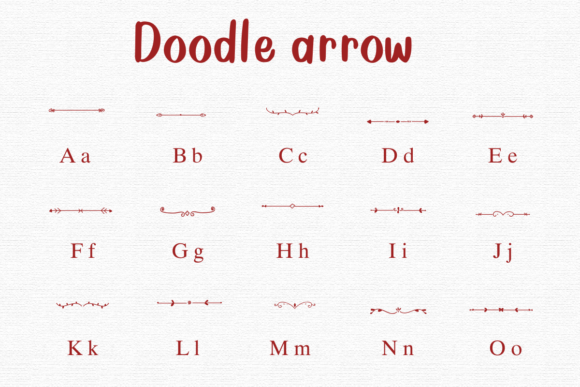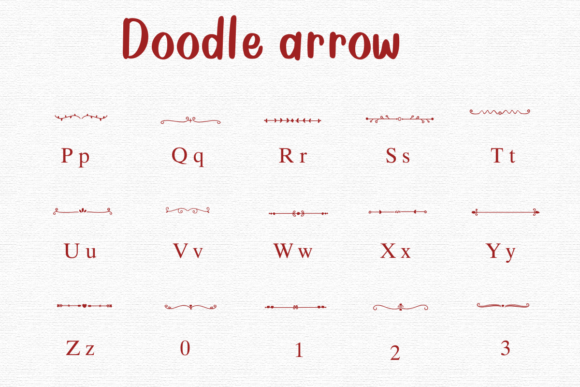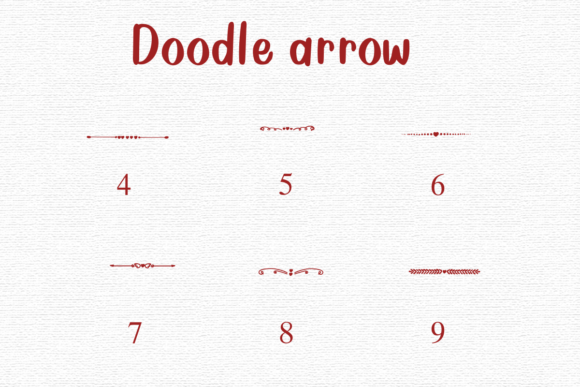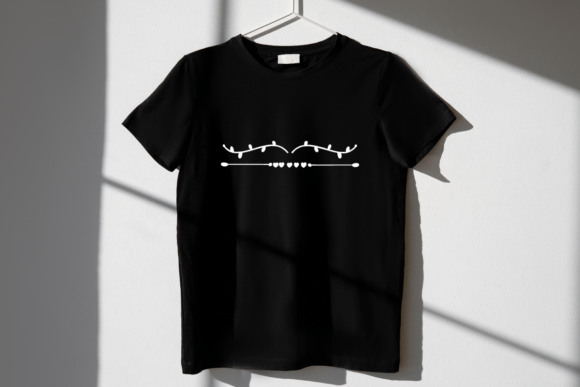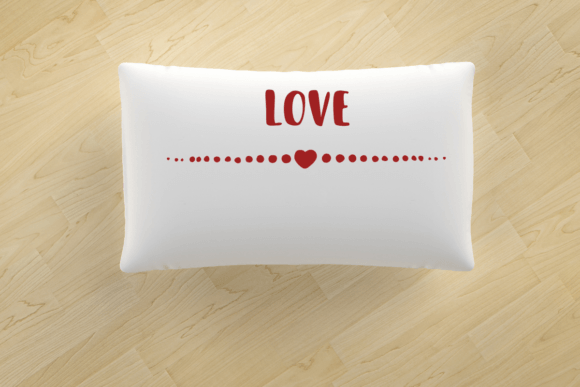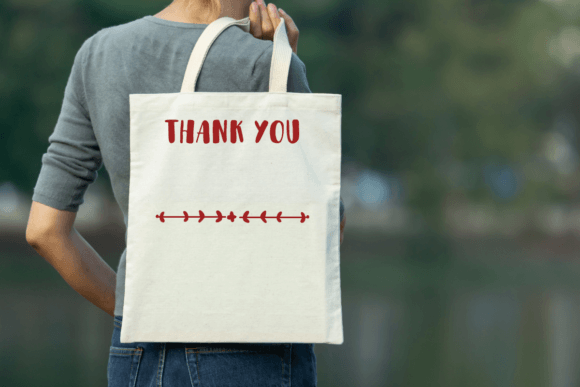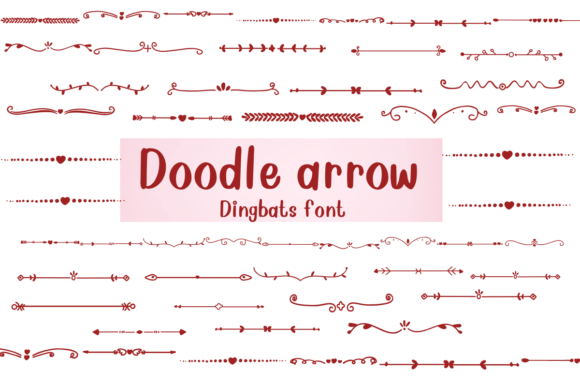
Introducing Doodle Arrow Font: Add a Touch of Whimsy to Your Designs
Are you looking for a fun and creative way to add arrows and borders to your designs? Look no further than Doodle Arrow Font, a delightful dingbat font that features a variety of arrow designs and corner frames. This playful font is perfect for designers, crafters, and anyone looking to add a touch of whimsy to their projects.
What is Doodle Arrow Font?
Doodle Arrow Font is a unique dingbat font that offers a range of arrow designs and corner frames, perfect for adding playful accents and borders to your projects. The font is easy to use and can be incorporated into a variety of designs, from invitations and posters to greeting cards and more.
Key Features of Doodle Arrow Font
- Variety of Arrow Designs: Doodle Arrow Font features a range of arrow designs, including straight arrows, curved arrows, and even arrows with decorative tips.
- Corner Frames: In addition to arrows, the font also includes a selection of corner frames, perfect for adding a decorative touch to your designs.
- Playful and Whimsical: The font’s playful and whimsical designs are sure to add a touch of personality to your projects.
Uses for Doodle Arrow Font
Doodle Arrow Font is a versatile font that can be used in a variety of projects, including:
- Invitations: Add a playful touch to your invitations with Doodle Arrow Font’s arrow designs and corner frames.
- Posters: Use the font to create eye-catching posters with decorative arrows and borders.
- Greeting Cards: Add a personal touch to your greeting cards with Doodle Arrow Font’s whimsical designs.
- Scrapbooking: Use the font to add decorative arrows and borders to your scrapbook pages.
Doodle Arrow Font is a fun and creative font that offers a range of possibilities for designers and crafters. With its playful arrow designs and corner frames, this font is perfect for adding a touch of whimsy to your projects. Whether you’re creating invitations, posters, or greeting cards, Doodle Arrow Font is a great choice for anyone looking to add a little personality to their designs.